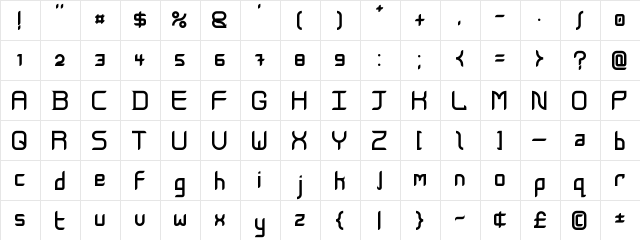
Gadolinium Rounded Medium
Design Context for Gadolinium Rounded Typeface
Gadolinium Rounded uses gentle rounded endings to create a warm, inviting typographic personality — less corporate than geometric sans, more refined than playful display fonts.
Well-suited to UI design, mobile interfaces, and any brand that wants approachability without sacrificing clarity.
Font Pairing: Pairs well with a rounded or humanist sans for body copy, maintaining the friendly tone without relying on Gadolinium Rounded to carry extended reading.
Pro Tip: Use Gadolinium Rounded for UI elements, app interfaces, and anywhere a friendly, approachable tone needs to be maintained without sacrificing clarity.